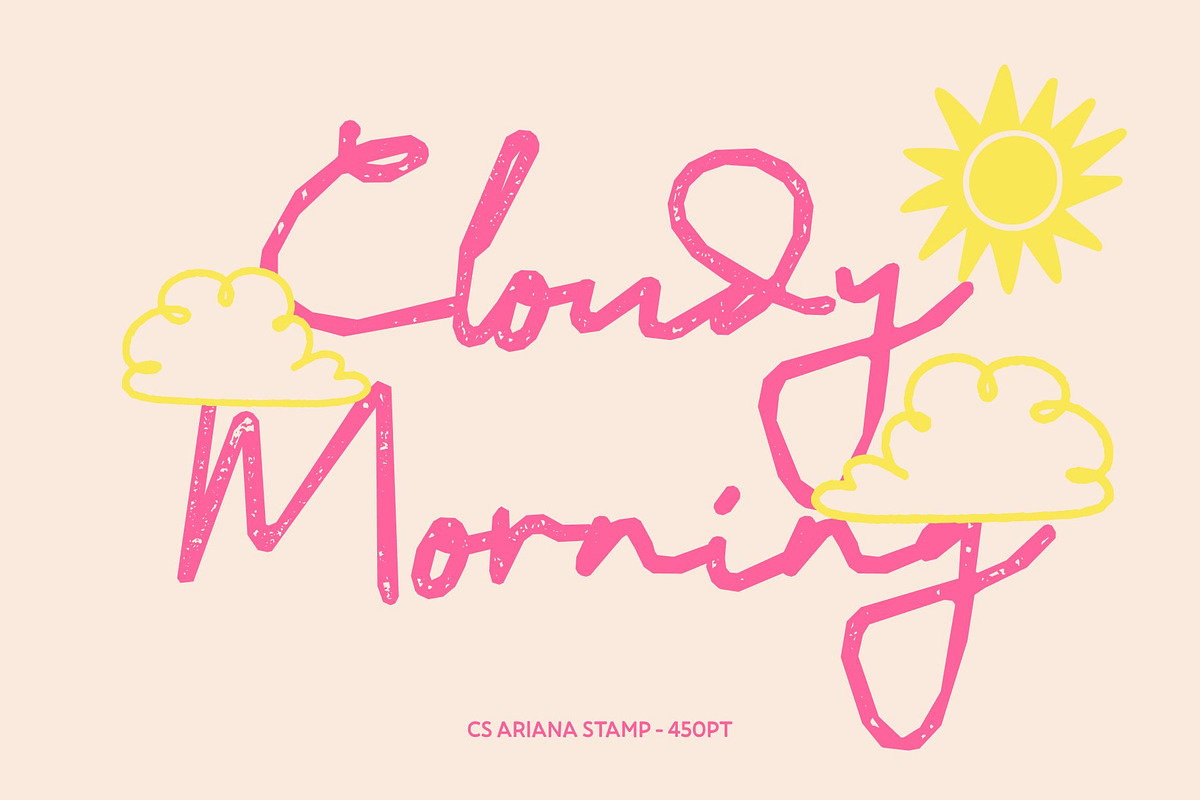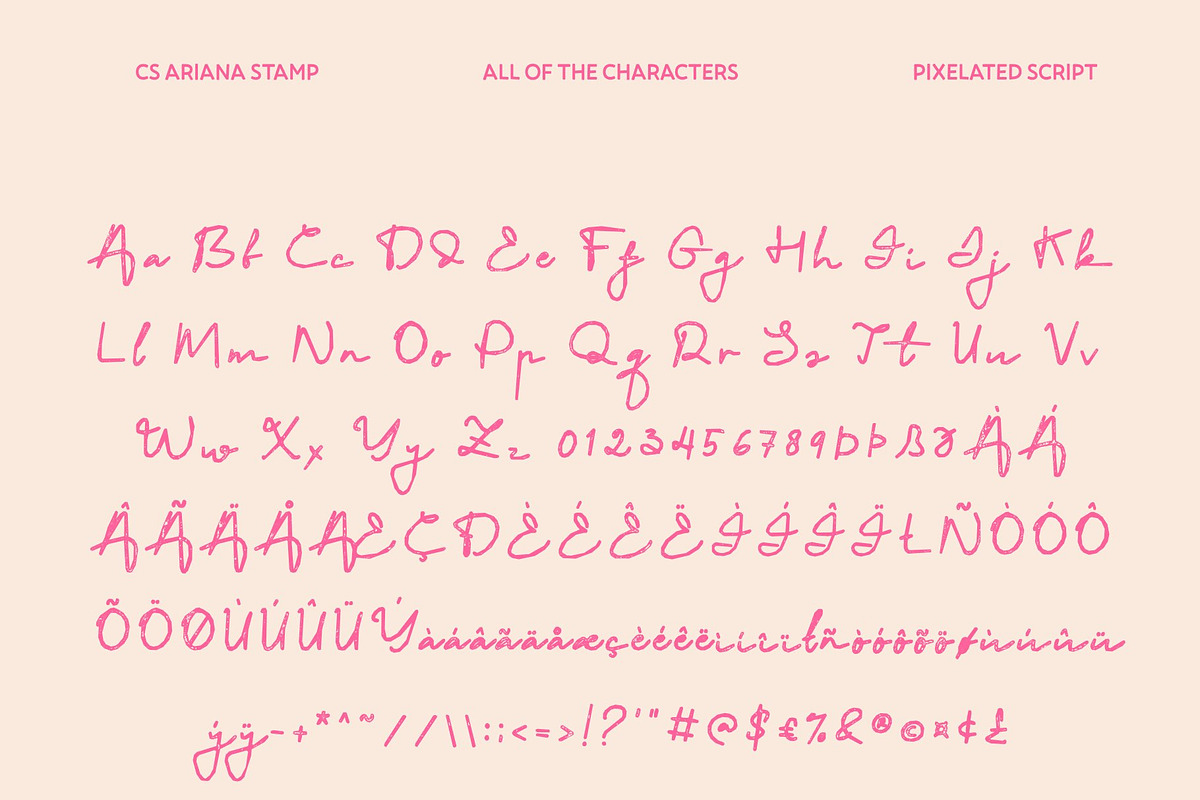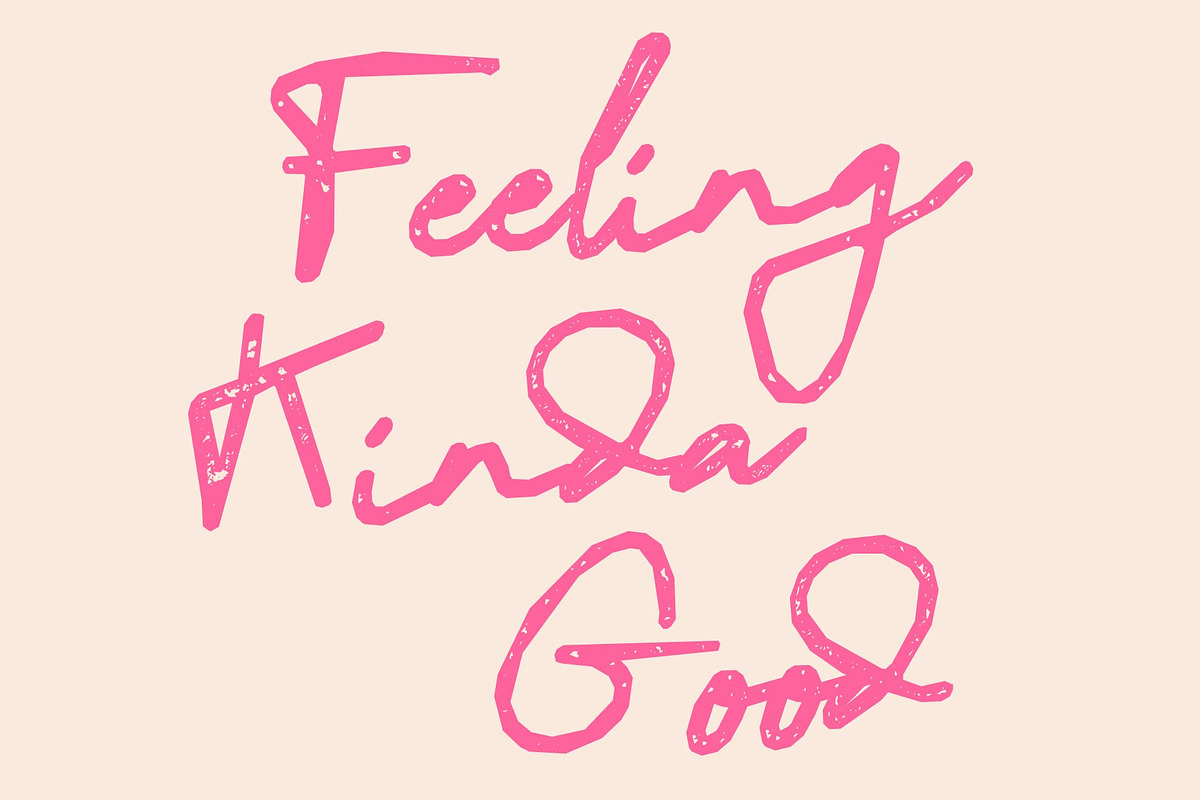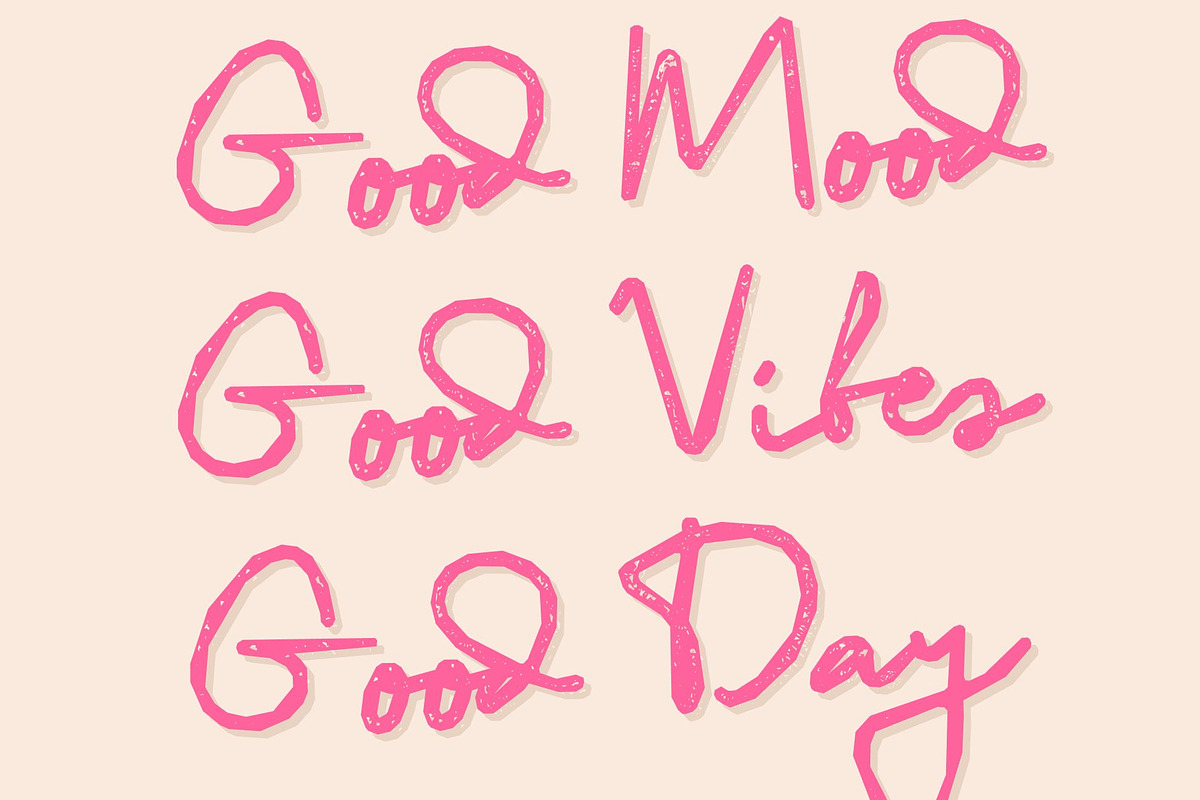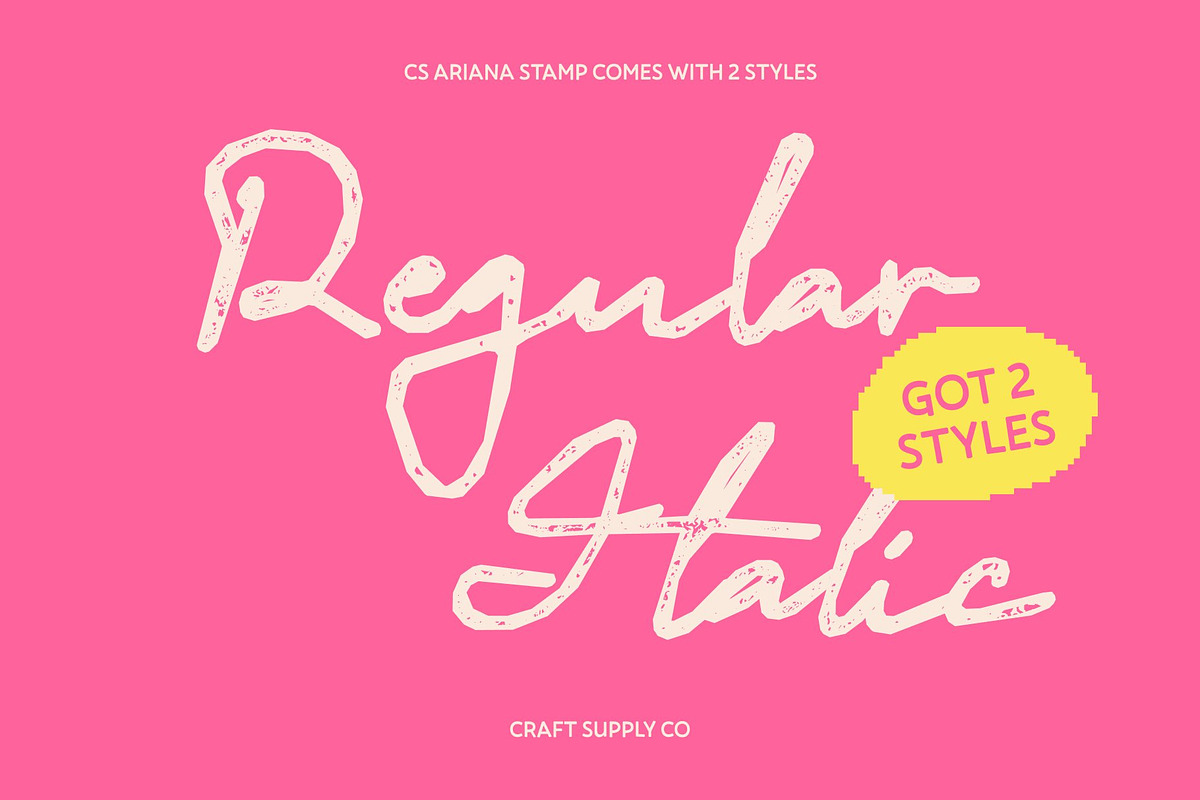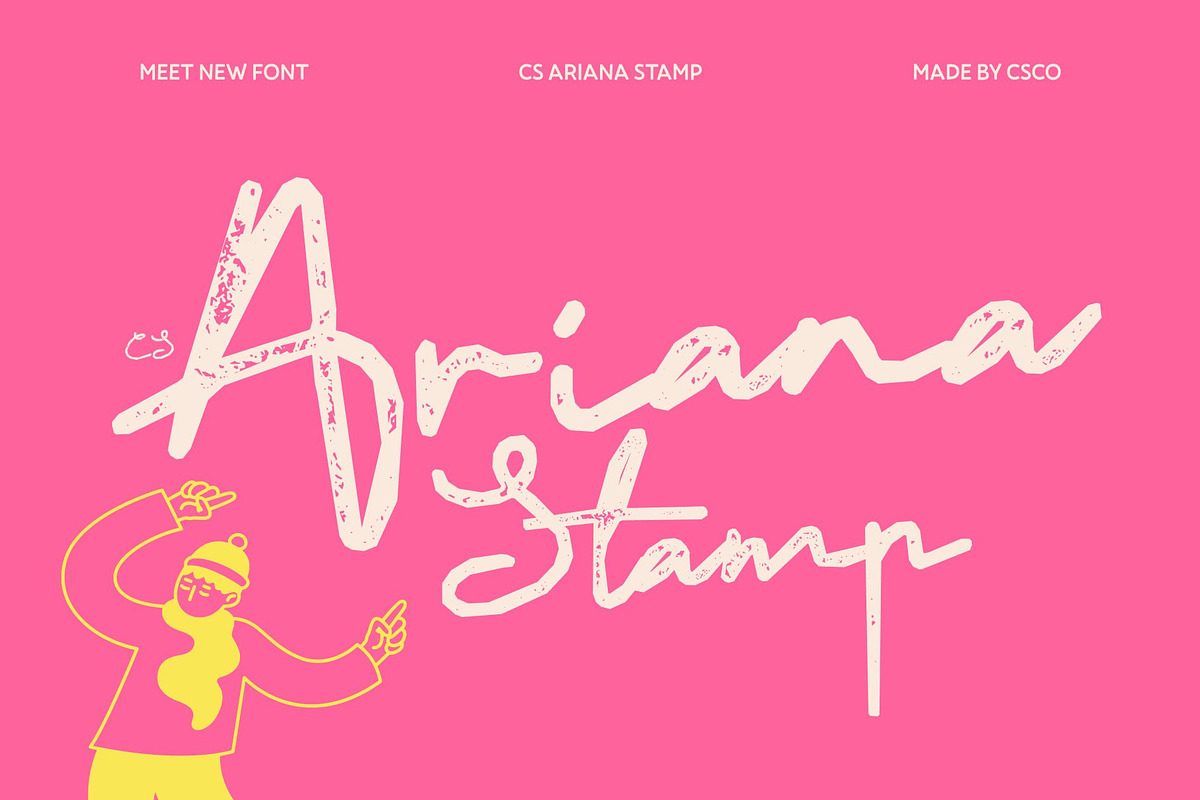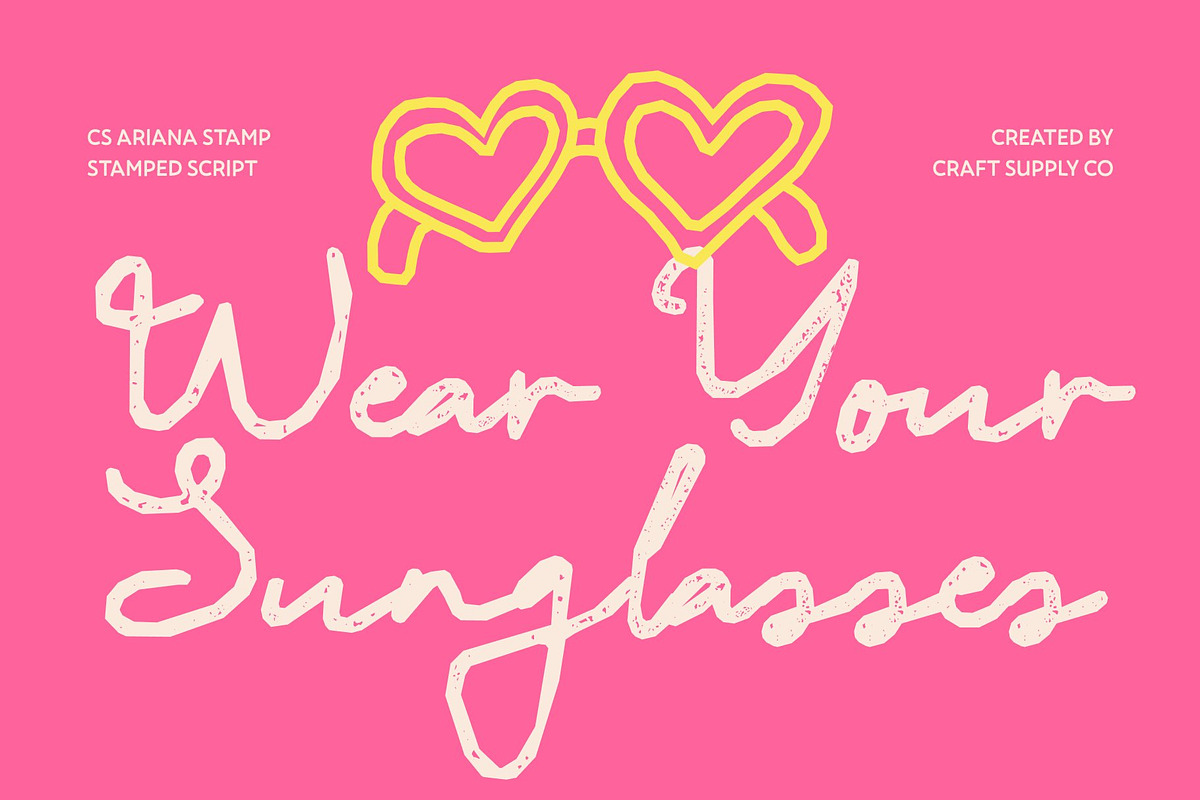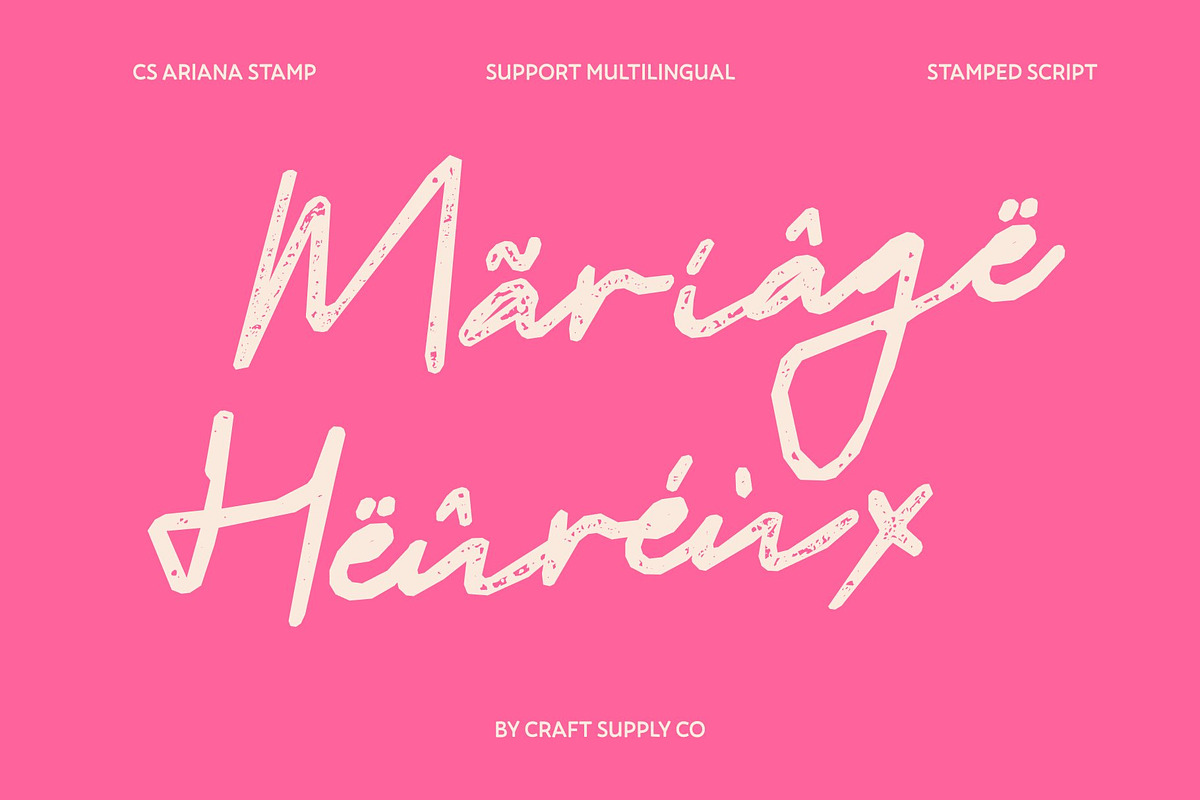
CS Ariana Stamp
CS Ariana Stamp – Romantic Script with Textured Delicate Beauty
Graceful Romance with a Stamped Touch This font enhances its flowing romantic script with a subtle stamped texture that adds warmth and handcrafted charm. The gentle movement and refined polish remain beautifully intact, while soft ink variations and lightly distressed edges introduce an artisanal depth like a love letter carefully pressed onto fine paper.
Soft Curves with Organic Elegance Each delicately shaped letter preserves its smooth connections and balanced flow, now enriched with tactile detail. The stamped finish adds intimacy and authenticity, allowing the strokes to feel naturally expressive without losing clarity. This combination creates a script that is both elegant and emotionally resonant.
Poetic Expression with Timeless Appeal This font captures the essence of romantic storytelling through its graceful rhythm and textured refinement. The subtle imperfections enhance its sincerity, giving headlines and accents a heartfelt presence that feels personal, warm, and beautifully composed.
Perfect for Weddings and Refined Lifestyle Design Ideal for book covers, wedding invitations, bridal branding, lifestyle editorials, and elegant packaging, brings sophistication with emotional depth. Its fusion of romantic script and stamped character ensures every design feels memorable, intimate, and effortlessly graceful.